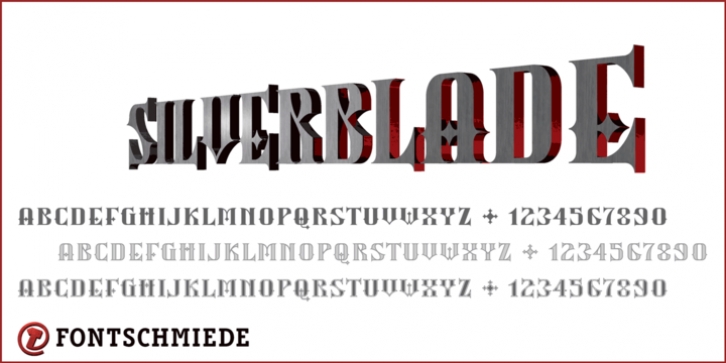
Silverblade downloadDesigner: Frank Baranowski
Publisher: Fontschmiede
Silverblade with multiple styles is suitable for layering with different colors. A natural for decorative drop-caps at the beginning of chapters.